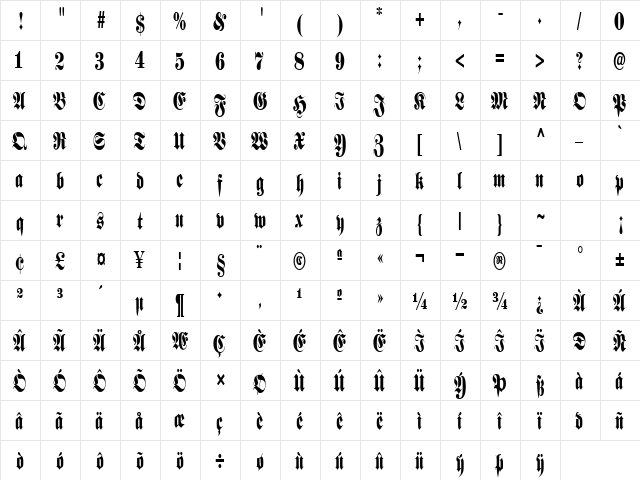
Berliner Condensed Regular
Design Context for Berliner Condensed Typeface
Berliner Condensed is a composed and adaptable typeface that performs quietly and consistently across a wide range of design contexts. Its narrow stance lets it pack a punch even in space-constrained designs.
Pro Tip: Use Berliner Condensed in both headline and body roles to test its range before committing to a single application.